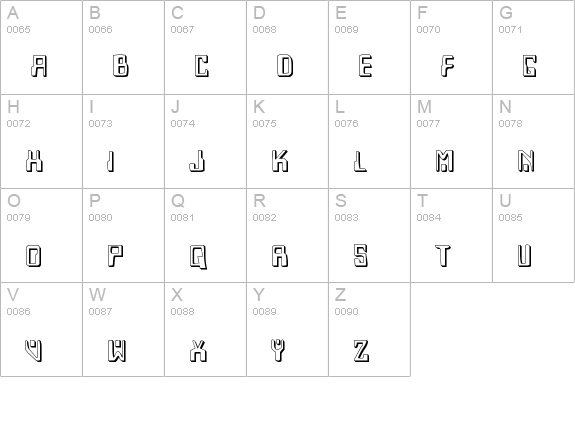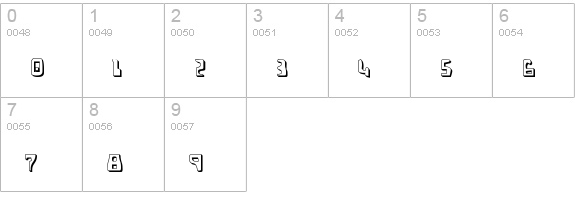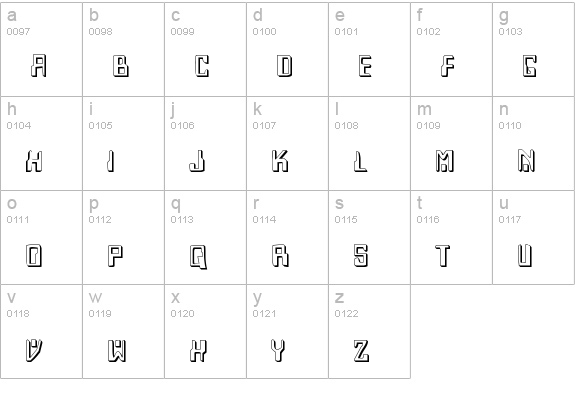
Homemade Robot Shadow Font Details
Homemade Robot Shadow font is a whimsical and futuristic typeface that brings a touch of playfulness to any design project. Its quirky style and robotic-inspired design make it perfect for creating eye-catching headlines, posters, and logos. The unique shadow effect adds depth and dimension to the letters, making them stand out in a fun and creative way. Best of all, Homemade Robot Shadow font is available for free download at FontsMarket.com. This means you can easily add this charming font to your collection without any cost. Whether you're working on a personal project or a professional assignment, Homemade Robot Shadow font is sure to bring a delightful touch to your designs. Download it today and let your creativity shine!